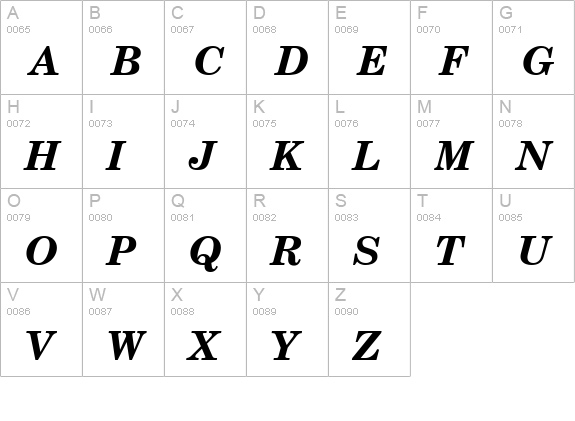
Century Schoolbook BOLDITALIC Font Details
Century Schoolbook BOLDITALIC is a versatile and elegant font style that exudes sophistication and modernity. Its bold and italic characteristics make it perfect for creating eye-catching headlines, emphasizing important text, or adding a touch of flair to your design projects. This font is well-suited for a wide range of applications, from editorial layouts to branding materials to web design. The Century Schoolbook BOLDITALIC font is available for free download at FontsMarket.com, where you can easily access this high-quality typeface and enhance your creative projects with its distinctive style. With its timeless appeal and unique design features, Century Schoolbook BOLDITALIC is a must-have addition to any designer's font library.